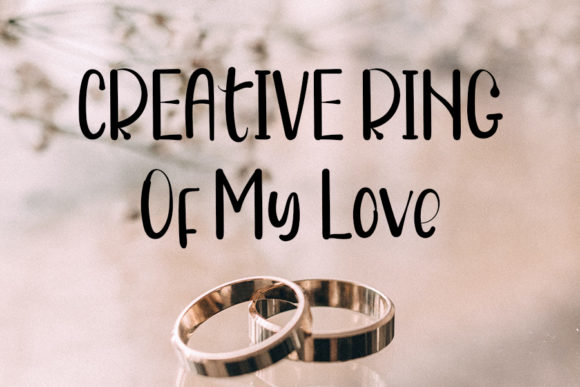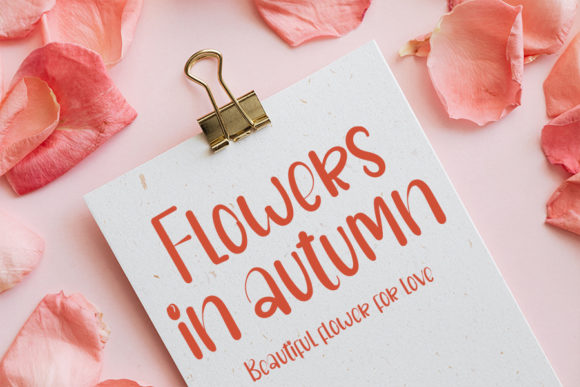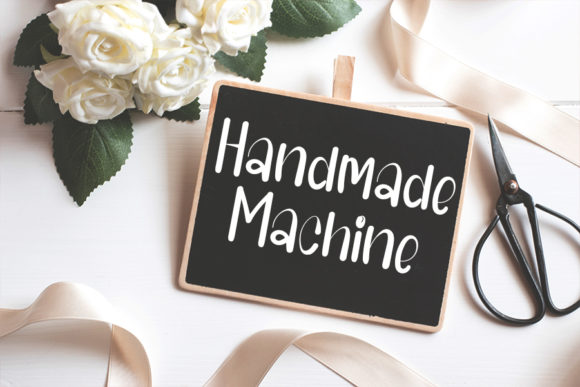
Introduction to Rain is Cheerful Font
Rain Is Cheerful is a romantic and dainty handwritten font.
It has a classy, elegant and modern look that can be used for logos, branding, invitations, stationery, wedding designs, social media posts, and much more .
Key Features of Rain is Cheerful Font
Why Choose Rain is Cheerful Font?
Rain is Cheerful Font offers exceptional quality and versatility, making it a valuable addition to your design toolkit. Whether you’re creating for personal projects or commercial use, Rain is Cheerful Font delivers professional results.